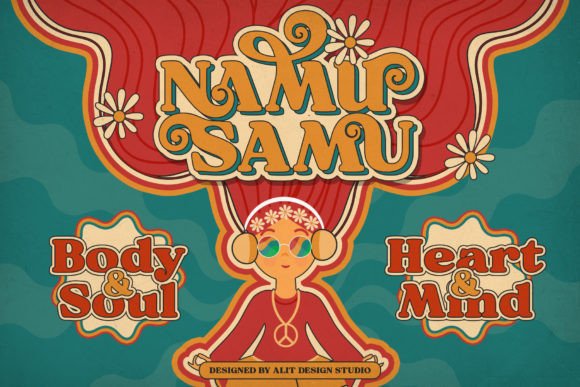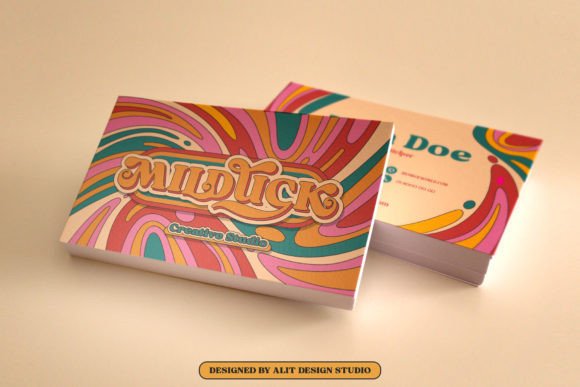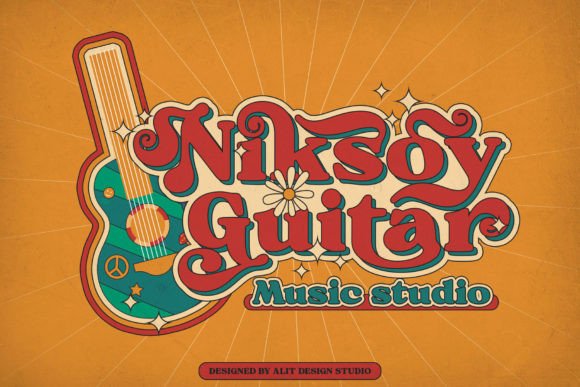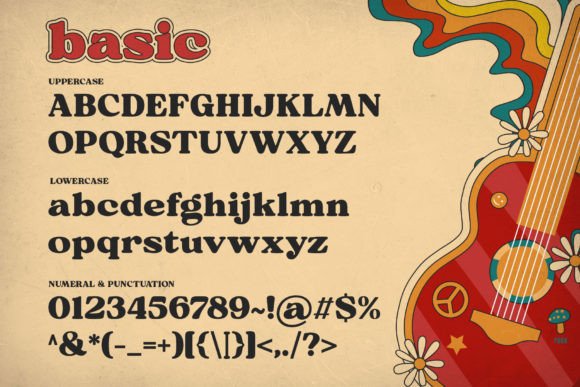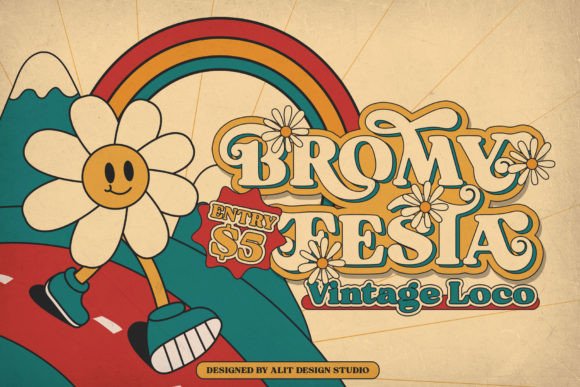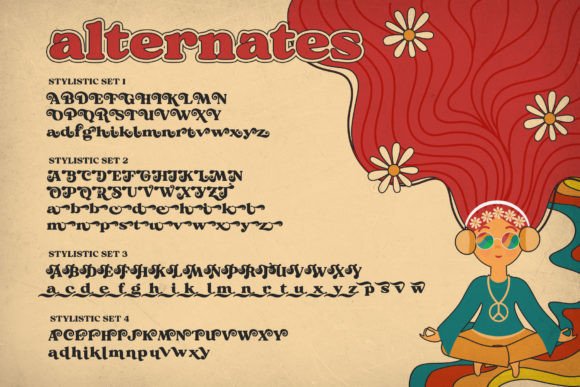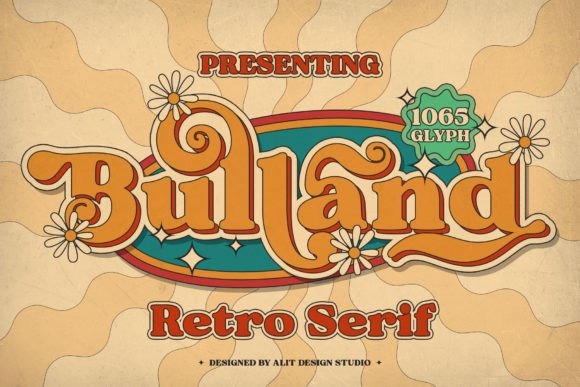
Bulland Font: A Retro-Inspired Typeface for Bold Designs
In the world of typography, font styles come and go, but some leave a lasting impression. The Bulland Font is one such typeface that draws inspiration from the stylish designs of the 80s and 90s. During this era, fonts with a firm and trendy impression were all the rage, and The Bulland Typeface is a modern take on that classic style.
The Inspiration Behind Bulland Font
The Bulland Typeface is a nostalgic nod to the iconic font styles of the 80s and 90s. This era was known for its bold, playful, and vibrant designs, which were often featured in music covers, magazine covers, and video game titles. The Bulland Font captures the essence of this retro aesthetic, with clean lines, geometric shapes, and a dash of sophistication.
Key Features of Bulland Font
The Bulland Typeface boasts an impressive range of features that make it an ideal choice for designers and crafters. Some of its key features include:
- Wide selection of alternative characters: The Bulland Typeface offers a diverse range of alternative characters, allowing designers to experiment with different styles and create unique designs.
- Swashes: The font comes with a variety of swashes, which can be used to add a touch of elegance and sophistication to designs.
Design Applications for Bulland Font
The Bulland Typeface is a versatile font that can be used in a wide range of design applications, including:
- Magazine covers: Create eye-catching magazine covers with a retro twist using The Bulland Typeface.
- Music covers: Add a touch of nostalgia to music covers with this bold and trendy font.
- YouTube thumbnails: Stand out on YouTube with custom thumbnails designed using The Bulland Typeface.
- Text headers: Use the font to create stunning text headers for websites, blogs, or social media platforms.
- Logotypes: Create memorable logotypes for brands, products, or services with The Bulland Typeface.
Why Choose Bulland Font?
With so many fonts available, why choose The Bulland Typeface? Here are a few reasons:
- Unique retro style: The Bulland Font offers a distinctive retro aesthetic that’s hard to find in modern fonts.
- Highly versatile: The font can be used in a wide range of design applications, from print to digital media.
- Easy to use: The Bulland Typeface is designed to be user-friendly, making it accessible to designers of all skill levels.
- Elegant and sophisticated: The font’s clean lines and geometric shapes give it an air of elegance and sophistication.
The Bulland Font is a stylish and versatile typeface that’s perfect for designers and crafters looking to add a touch of retro flair to their designs. With its wide selection of alternative characters, swashes, and Unicode support, this font is ideal for creating bold, eye-catching designs. Whether you’re working on a magazine cover, music cover, or YouTube thumbnail, The Bulland Typeface is sure to make a lasting impression.